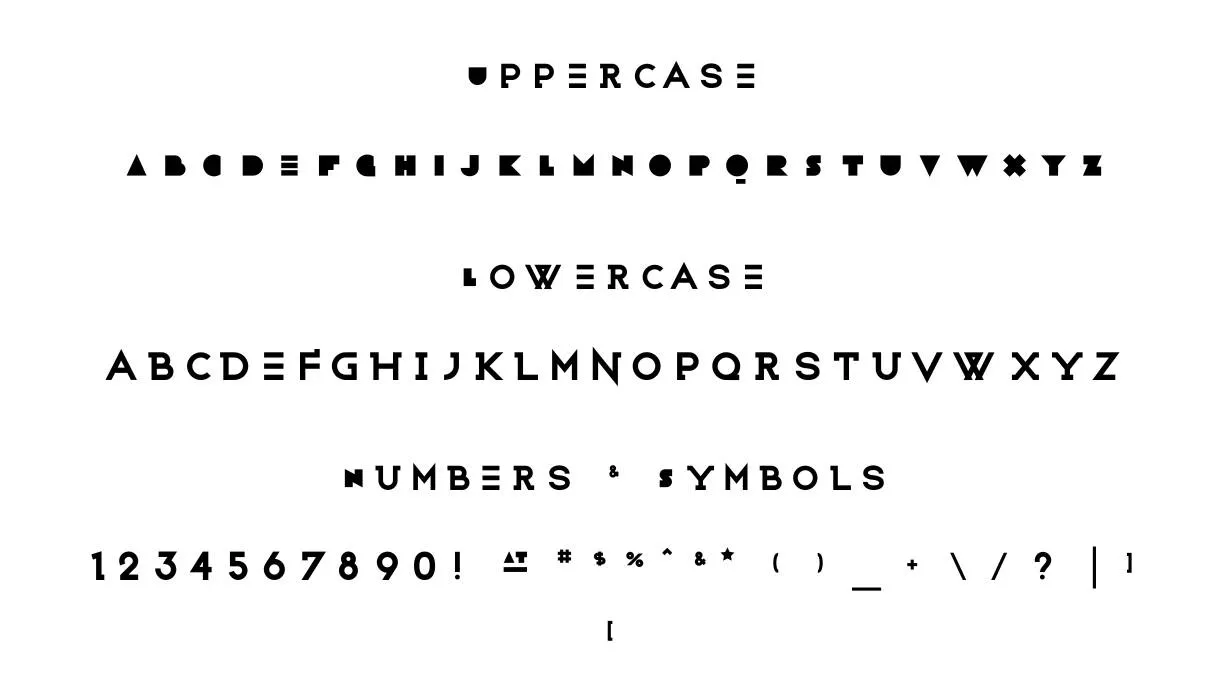
The Wicked Font injects a mischievous and playful vibe into your designs, perfect for projects that embrace a touch of wickedness or Halloween-themed graphics. Its quirky characters bring an element of fun and mischief.
| Name | Wicked Font |
| Designer | Magique Fonts |